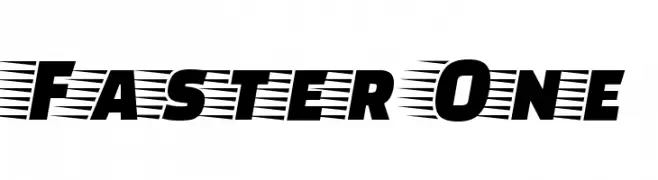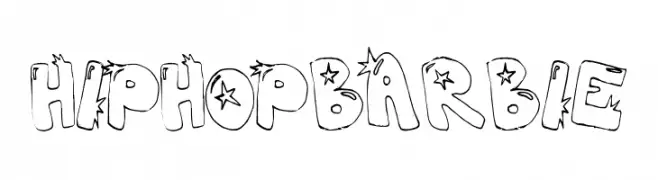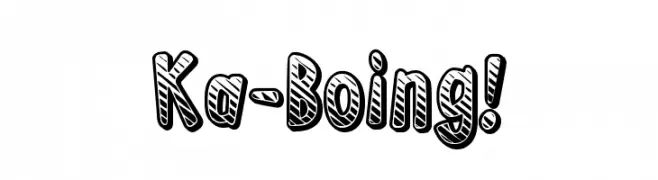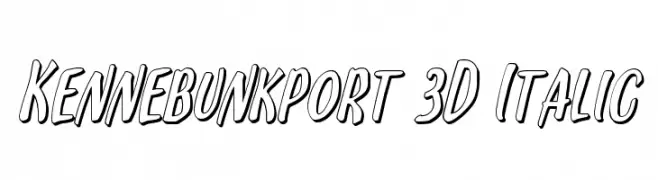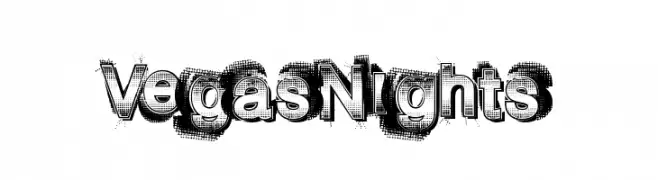
A bold, 3D-effect font with a dynamic, italicized style.
A bold, decorative font with a retro 3D halftone effect.
A bold, 3D italic font with dynamic and playful characteristics.
A bold, slanted font with a dynamic, speedy appearance.
A bold, playful font with a 3D striped effect and thick outlines.
A playful, vintage-style font with bold outlines and dotted textures.
A bold, graffiti-inspired font with playful, cartoonish elements.
A bold, italicized font with a dynamic and energetic style.